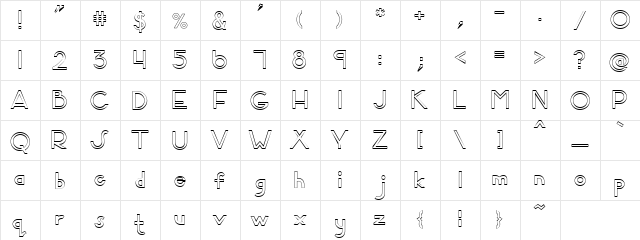
PC Borders Regular
Design Context for PC Borders Typeface
PC Borders offers clean, dependable letterforms without strong stylistic allegiance, making it a practical choice for designers who need flexibility.